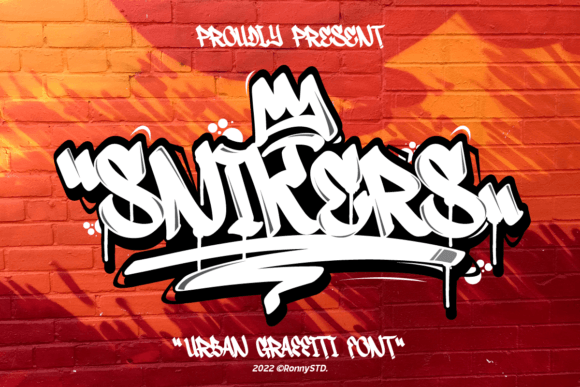
Unleash the Urban Edge with Snikers Font: The Ultimate Graffiti Display Masterpiece
Dive into the world of street art and urban expression with Snikers Font, a captivating display font that exudes boldness and readability. Inspired by the vibrant graffiti murals adorning the walls of big cities, this font is a true standout, ready to transform your designs into eye-catching masterpieces.
Snikers Font is crafted with precision, ensuring effortless legibility even at large sizes, making it the perfect choice for T-shirt printing, posters, flyers, and any design project craving a touch of urban flair. Its bold strokes command attention, while its graffiti-inspired aesthetic adds an edgy, contemporary vibe to your creations.
With Snikers Font, you'll find endless possibilities to express yourself. Create eye-catching headlines that demand attention, design stunning logos that exude urban chic, or craft social media graphics that pop off the screen. The font's versatility extends to a wide range of design styles, from streetwear and music festival posters to urban-inspired branding and packaging.
Snikers Font is more than just a font; it's a gateway to a world of creativity and self-expression. Its graffiti roots evoke a sense of rebellion and freedom, inviting you to break the mold and make a statement with your designs. Embrace the urban spirit, let your creativity flow, and watch as Snikers Font transforms your designs into works of art that resonate with your audience.
Don't settle for ordinary fonts. Choose Snikers Font, the ultimate graffiti display masterpiece, and unlock a new level of design brilliance. Its bold and readable nature will captivate your audience, while its urban edge will leave a lasting impression. Immerse yourself in the world of street art and create designs that speak volumes.